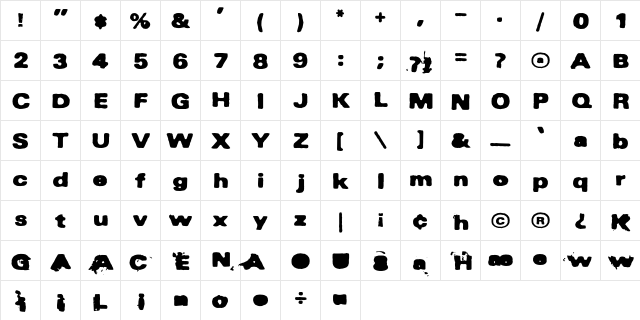
INKy black
Design Context for INKy Typeface
INKy is a composed and adaptable typeface that performs quietly and consistently across a wide range of design contexts.